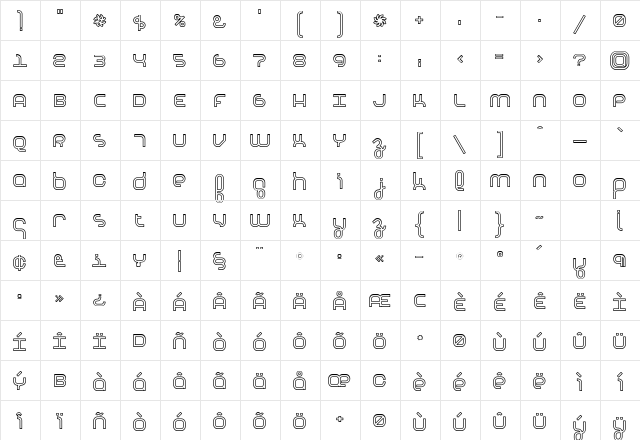
Basis HeavyOutline
Design Context for Basis Typeface
Basis brings ornamental detail and strong personality to headlines and identities, where visual impact matters more than quiet functionality.
Font Pairing: Pair with a clean neutral sans-serif for body copy to let Basis's character lead without overwhelming the composition.
Pro Tip: Use Basis exclusively at display sizes — it was designed to be seen, not read at length. Let a neutral companion handle body copy.